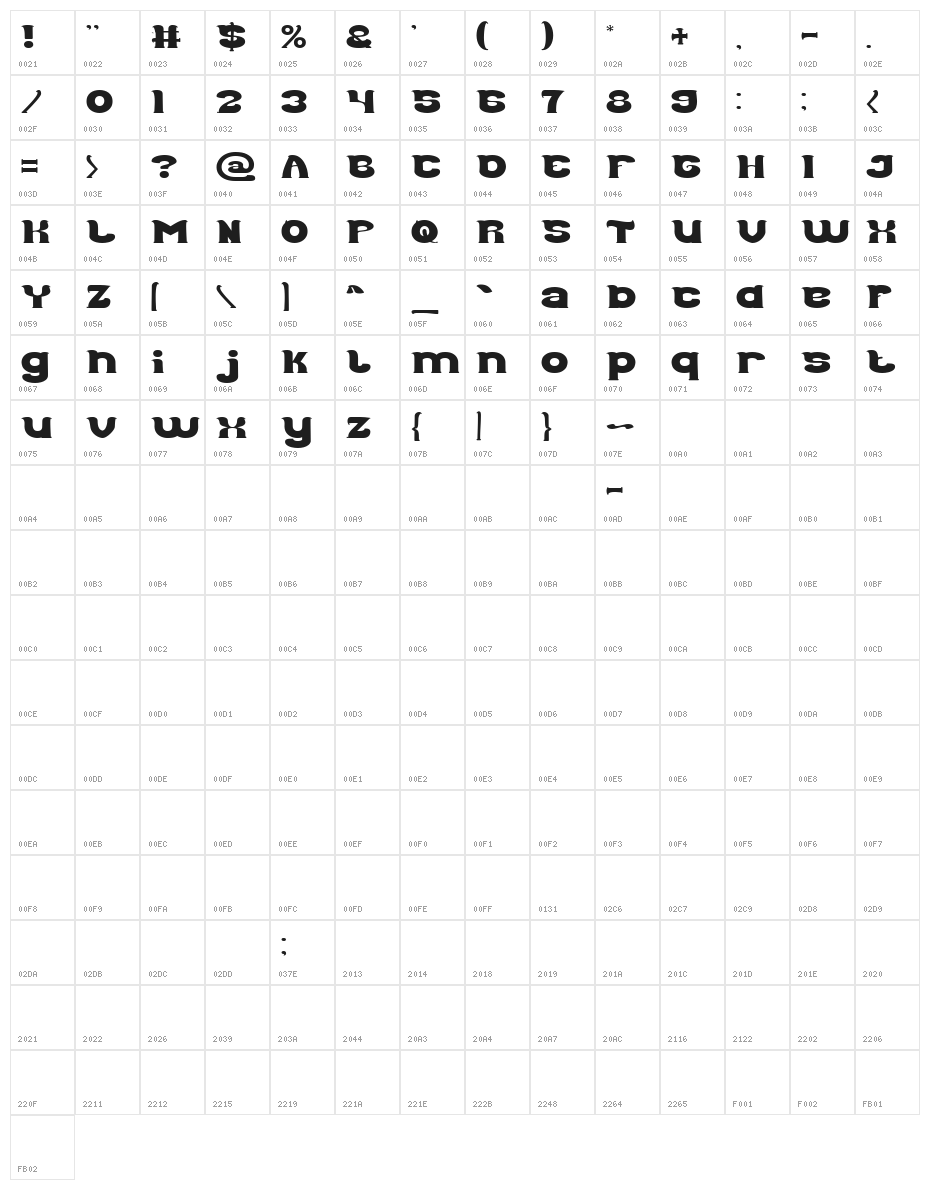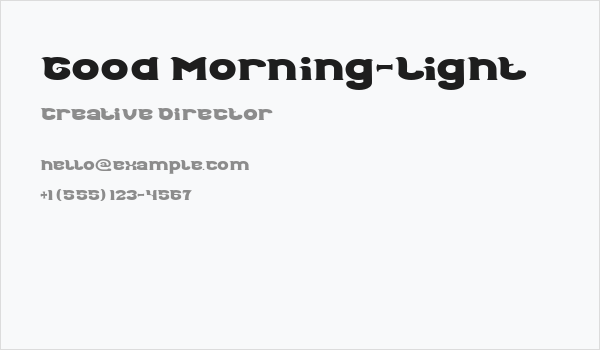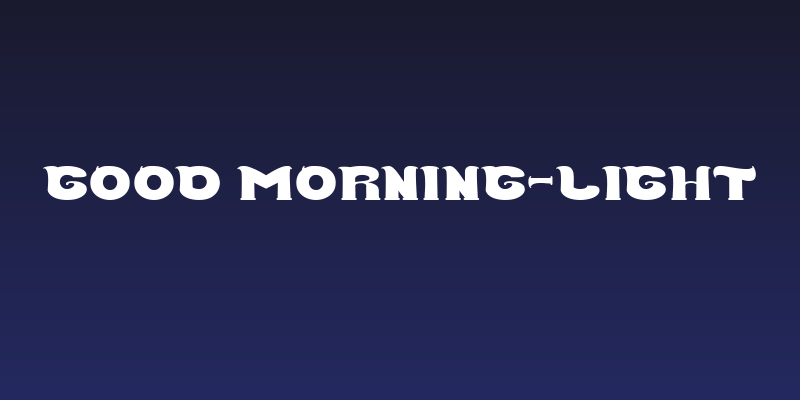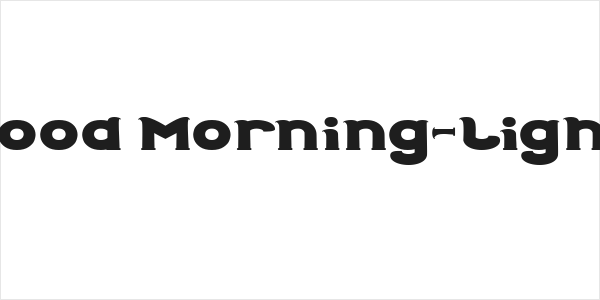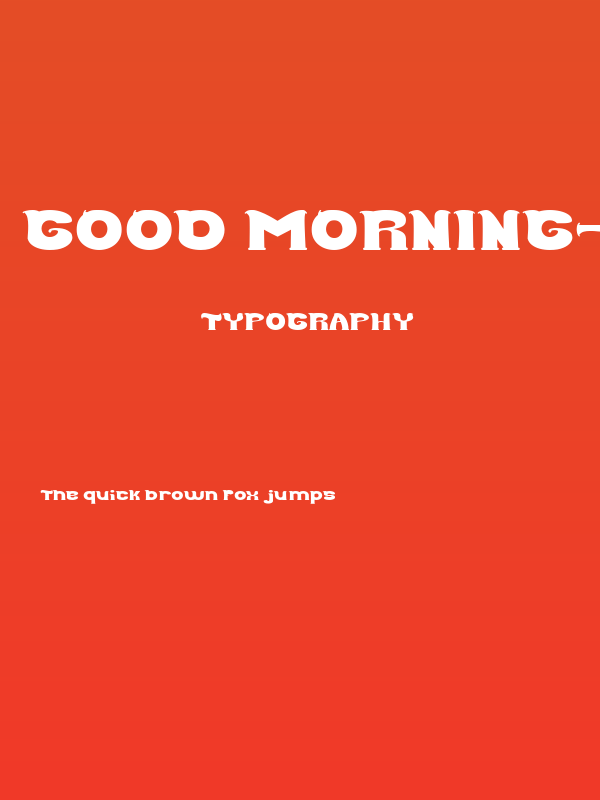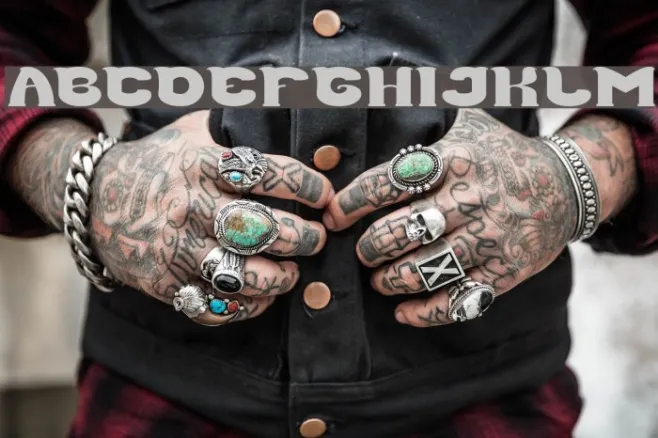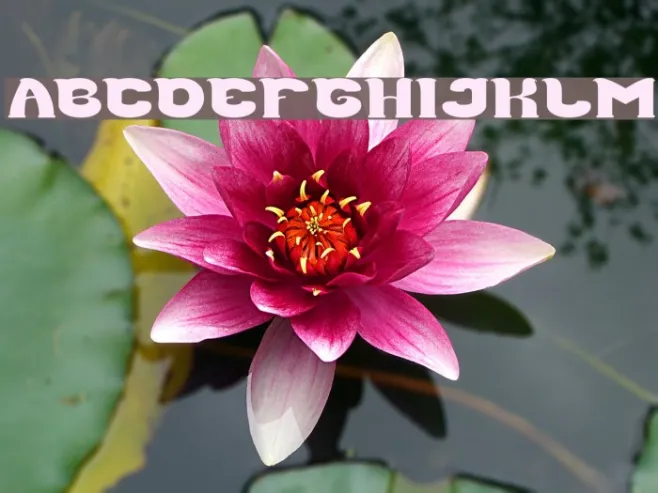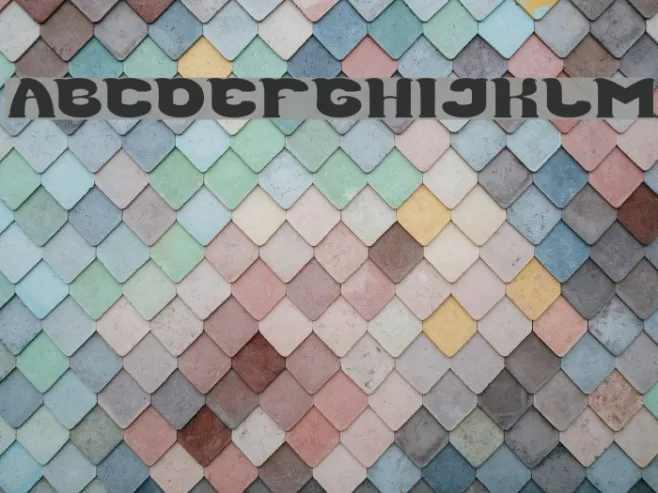
Good Morning-Light Font
Good Morning-Light Description
This font features a playful and bold style with a distinctive, rounded appearance. The characters are thick and have a slightly whimsical, cartoonish feel, making them stand out with a unique personality. The uppercase and lowercase letters maintain a consistent weight, contributing to a cohesive look. The numbers and special characters follow the same design principles, ensuring uniformity across all glyphs. The font's boldness and rounded edges give it a friendly and approachable vibe, suitable for projects that require a touch of fun and creativity.
| Proposed Projects | Ideal for children's books, playful branding, posters, and creative digital content. |